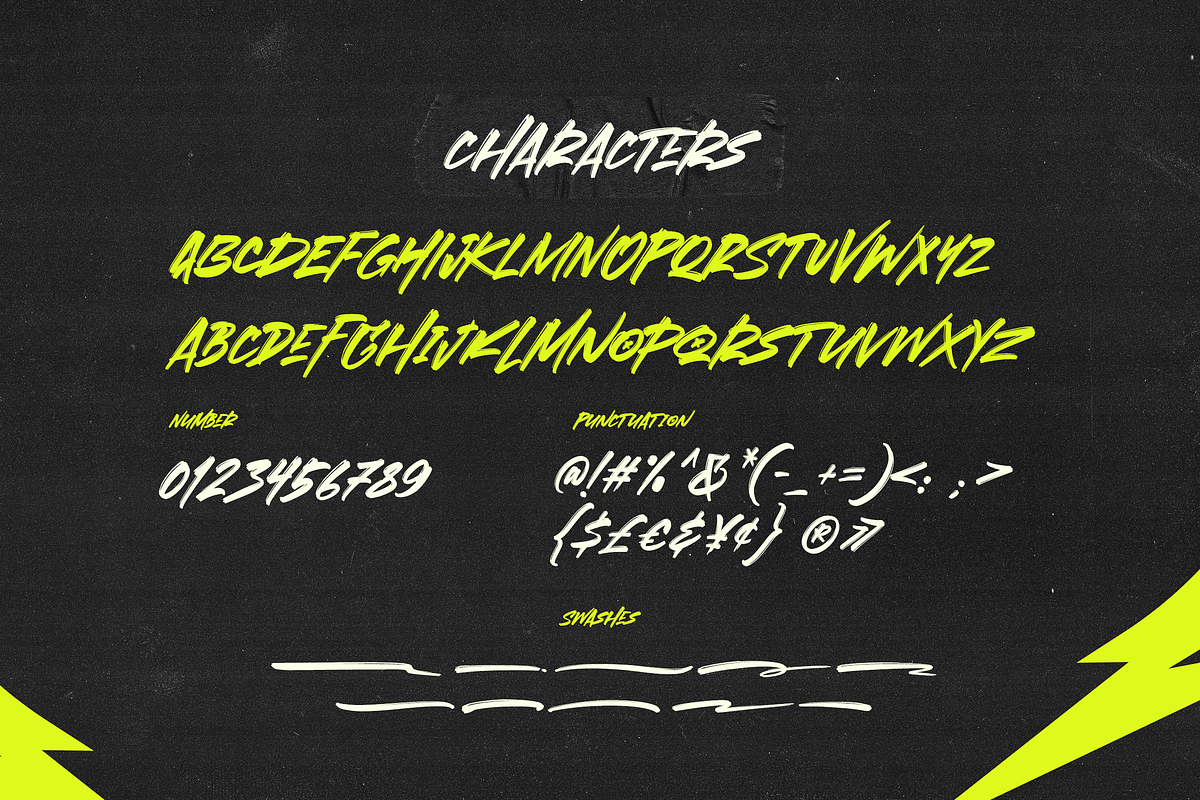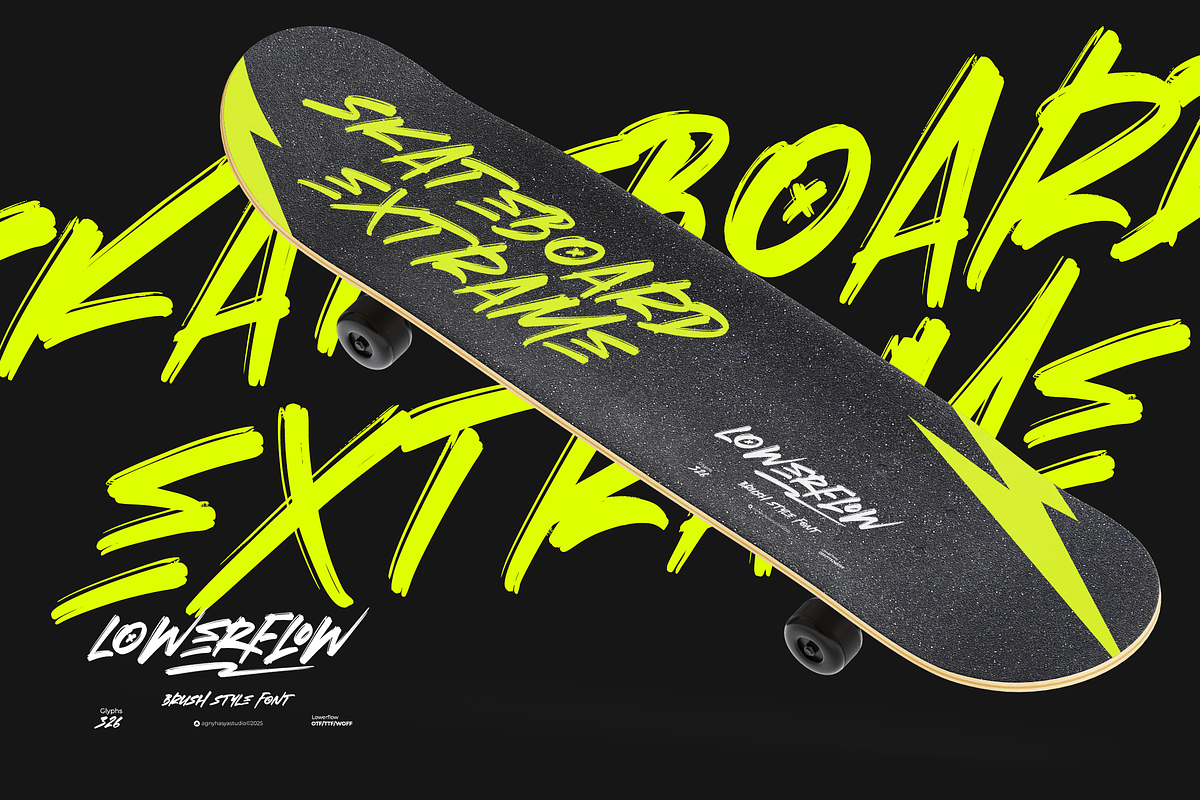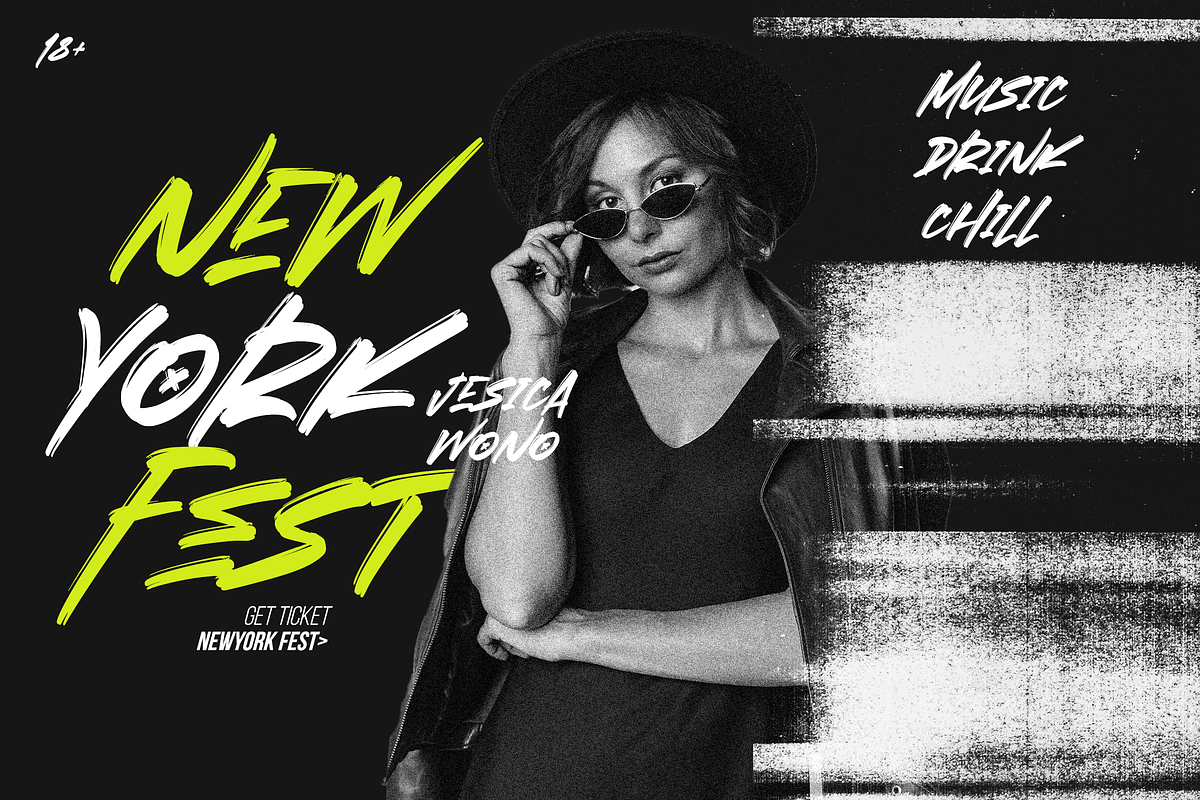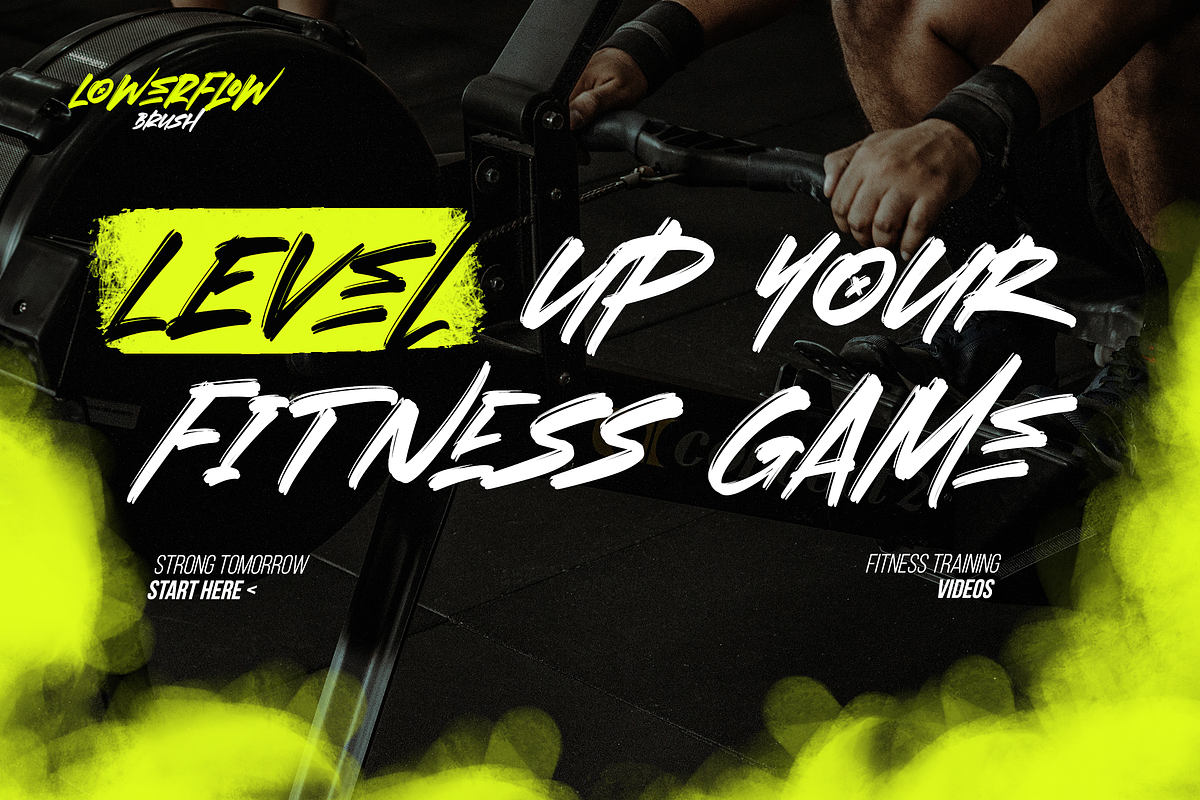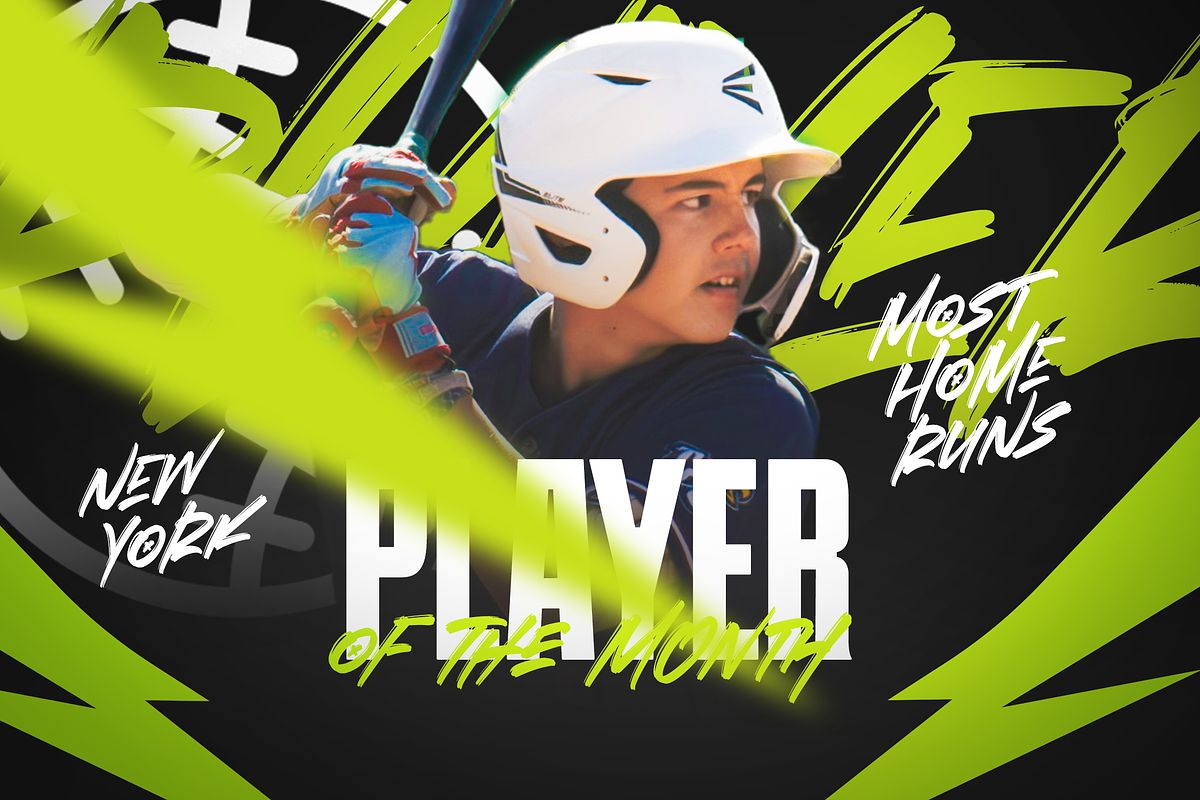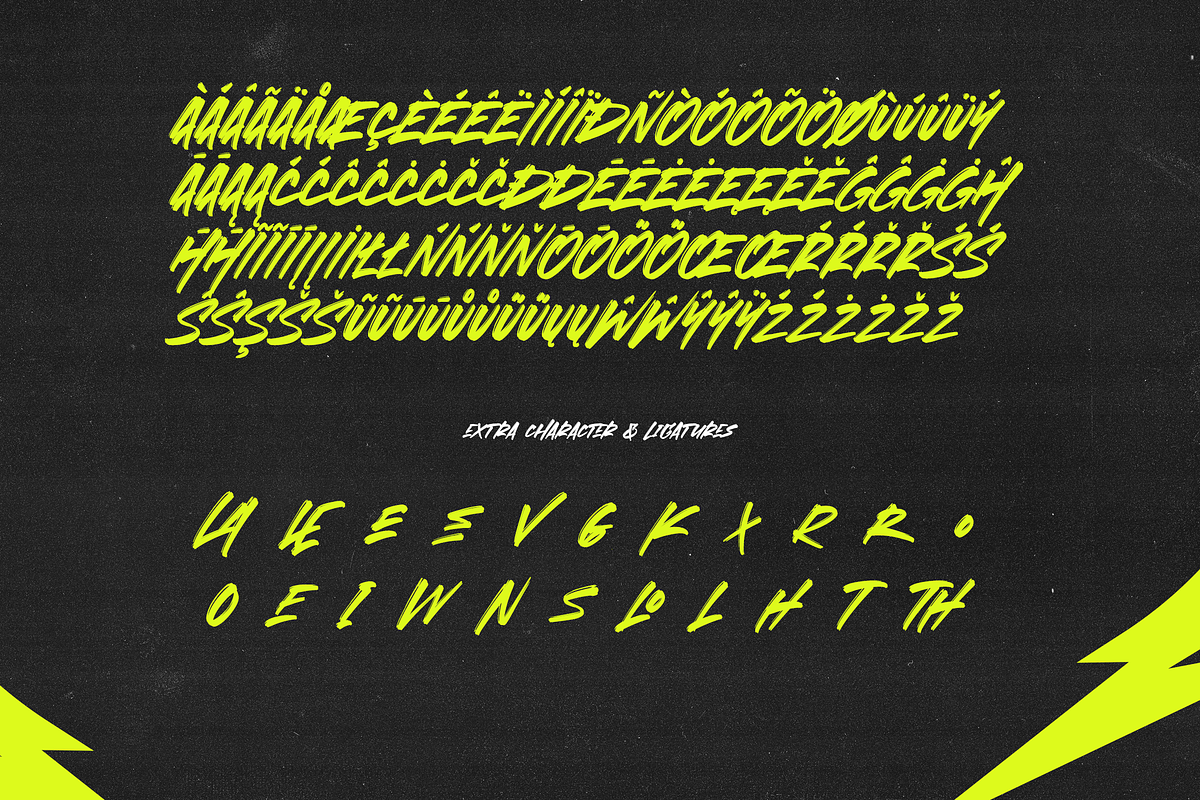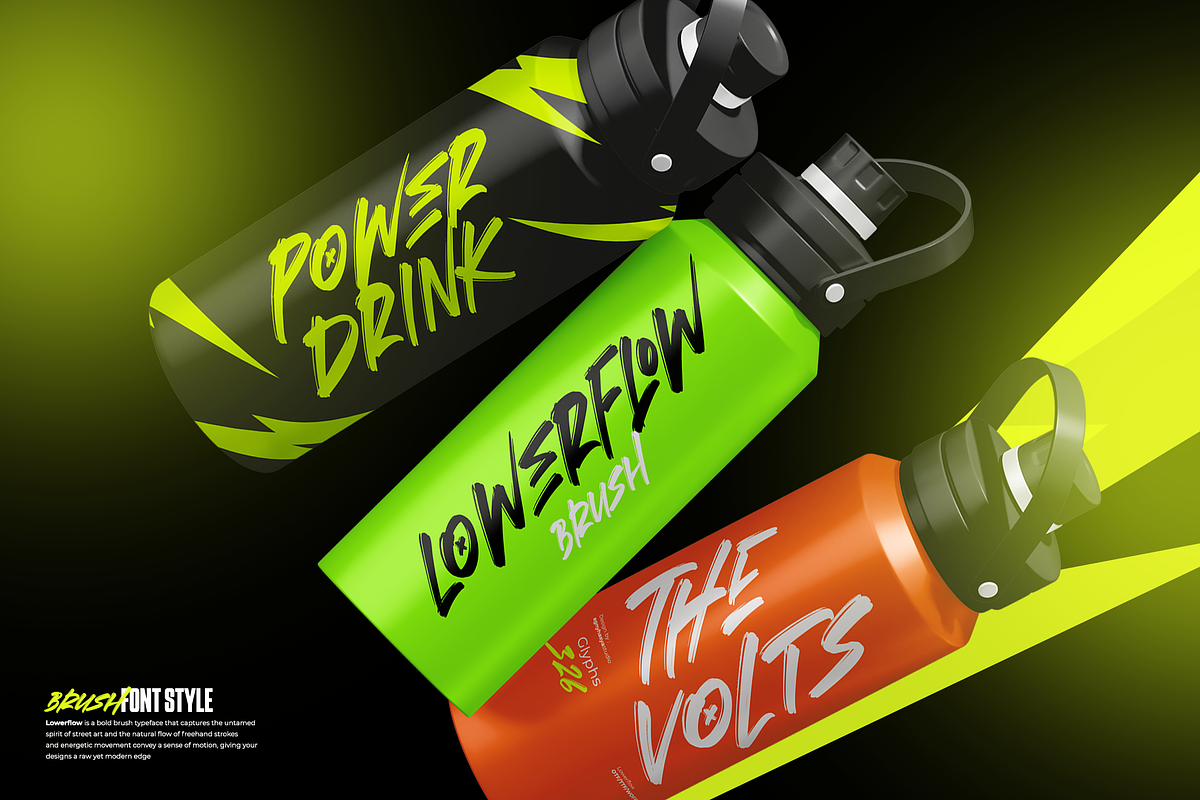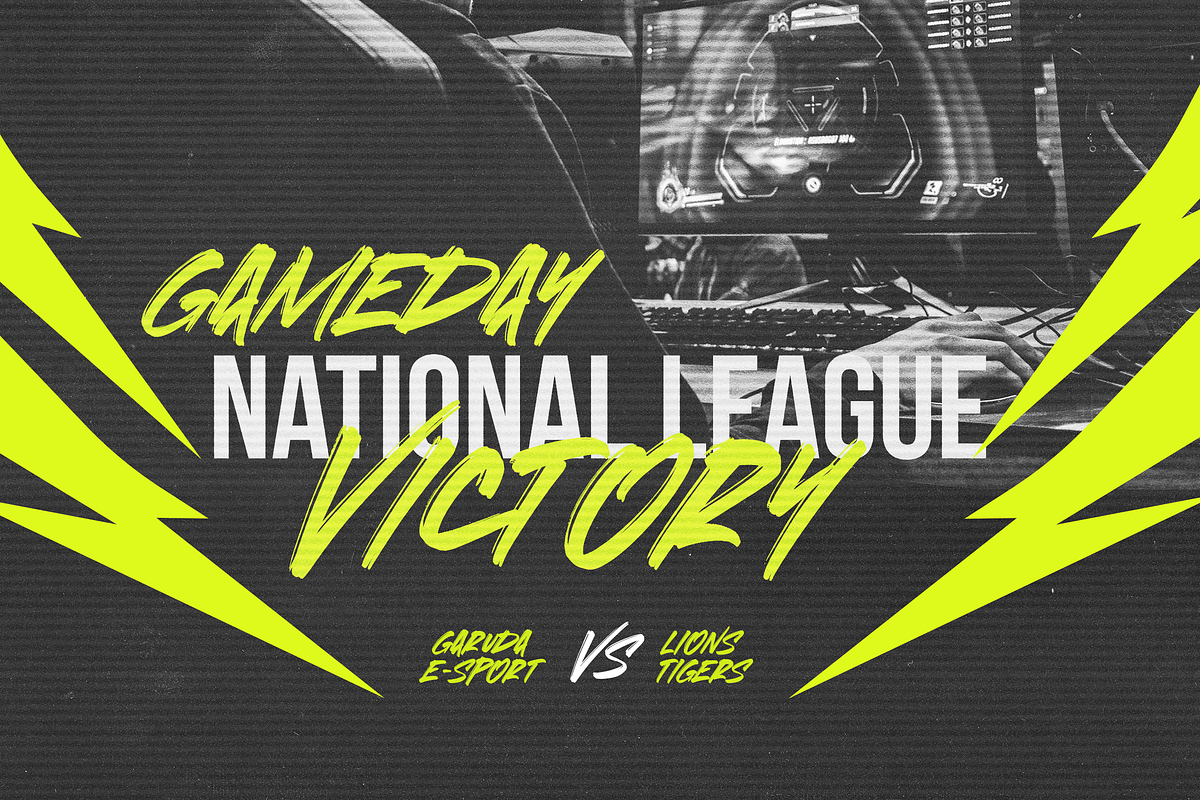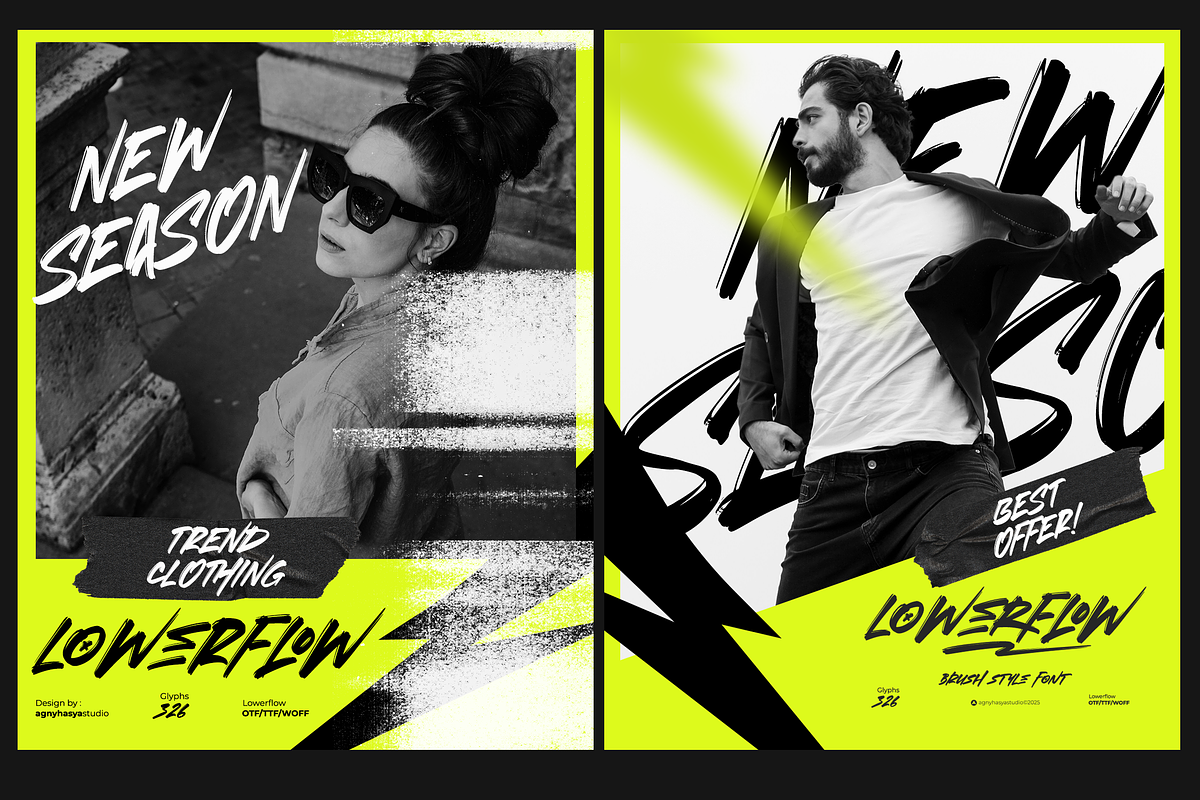
Lowerflow - Brush Font
Lowerflow is a bold brush typeface that captures the untamed spirit of street art and the natural flow of freehand strokes and energetic movement convey a sense of motion, giving your designs a raw yet modern edge.
Perfect for projects that need a casual style, Lowerflow great fit on logos, apparel, packaging, posters, social media, and more. Each letter feels handcrafted, adding personality and a human touch to your creative work.
With multilingual support, Lowerflow is designed to cross borders and communicate globally. Whether you’re aiming for a gritty urban vibe or a playful tone, this font adapts with style.